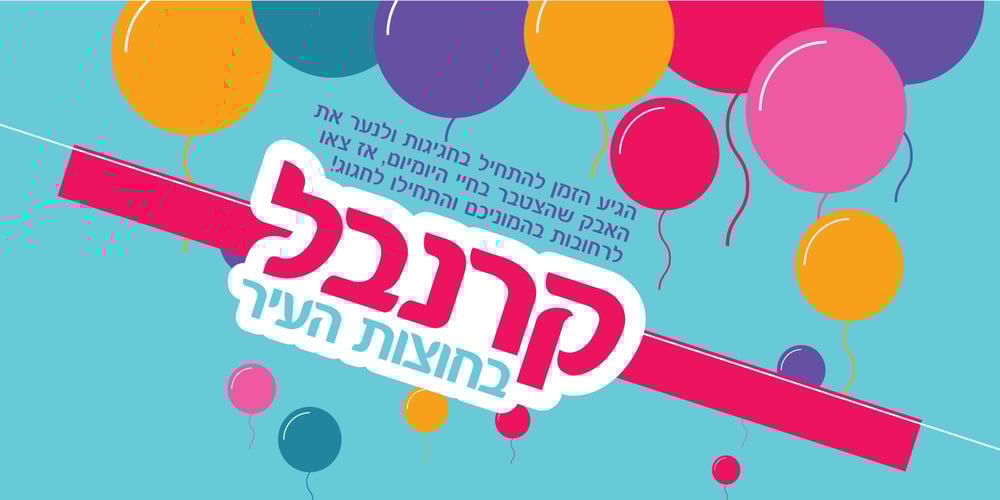
Rugatka MF
Rugatka MF font
Rugatka MF Font Family was designed by Zvika Rosenberg and published by Masterfont. Rugatka MF contains 3 styles and family package options. Super elegant, yet formal, with rounded edges to make it perfect for wedding or movie poster.